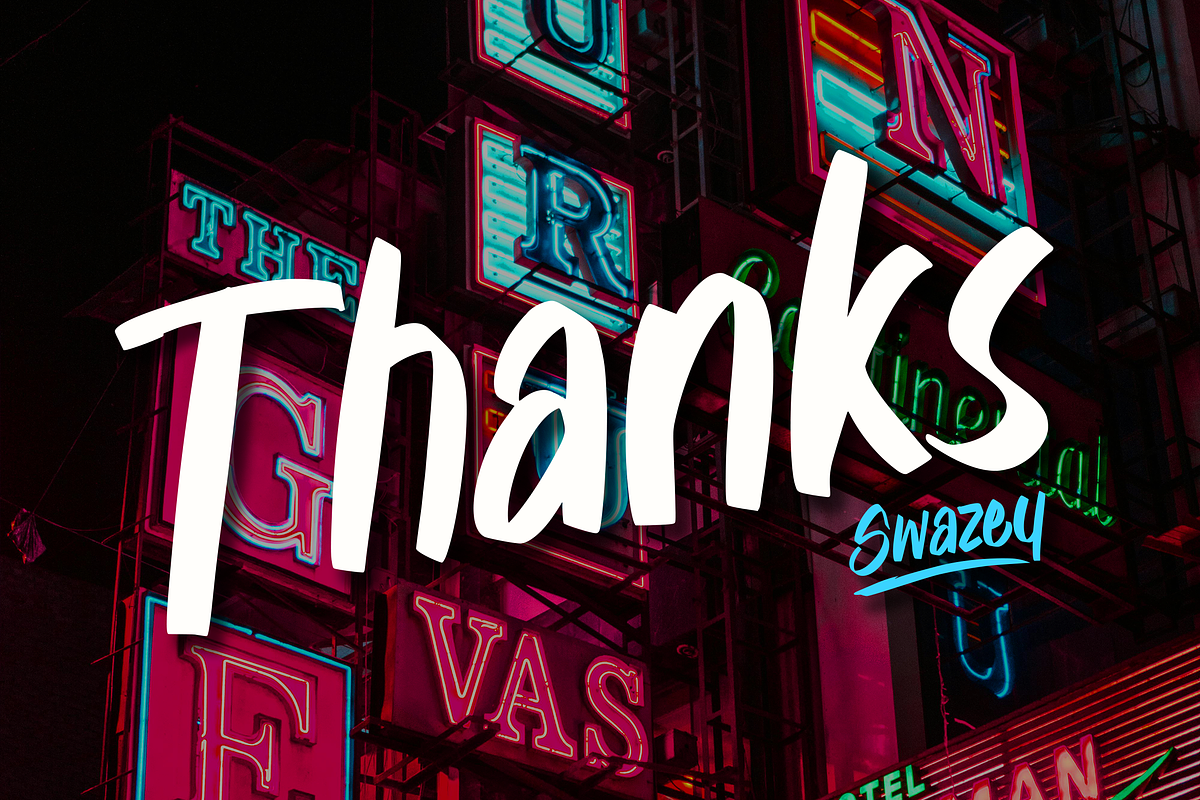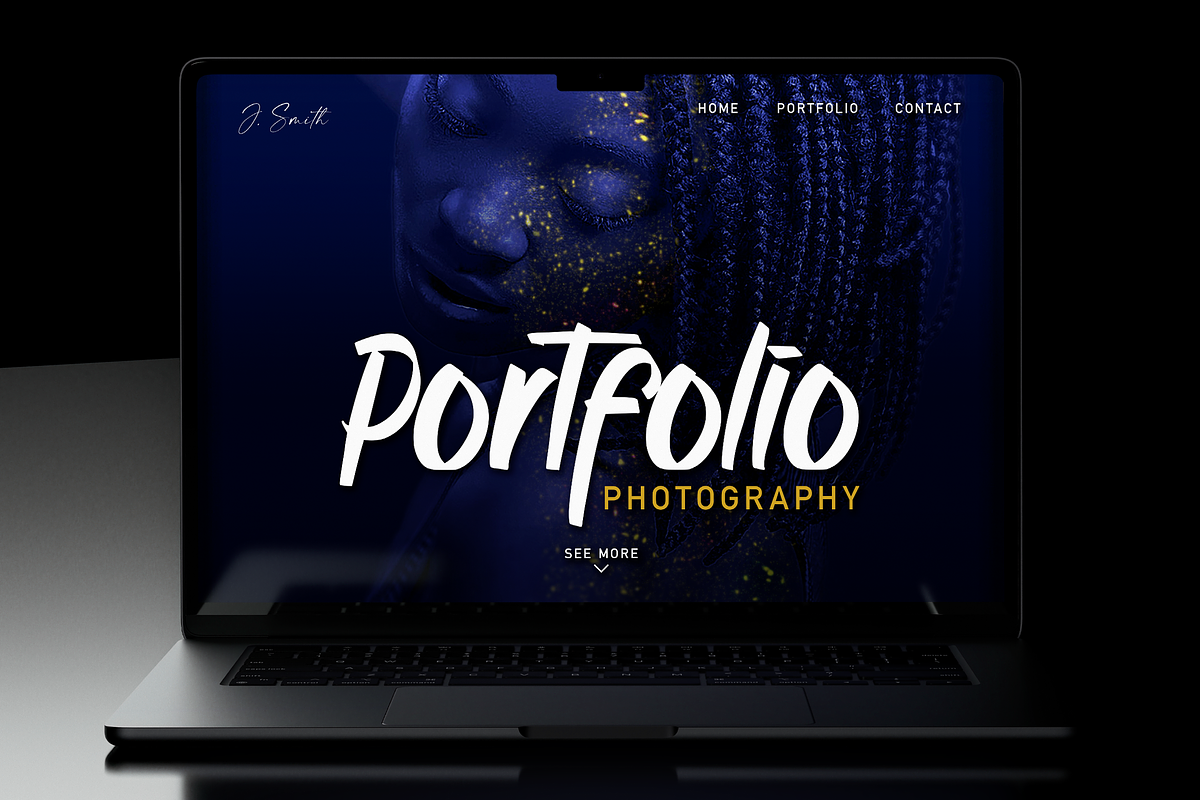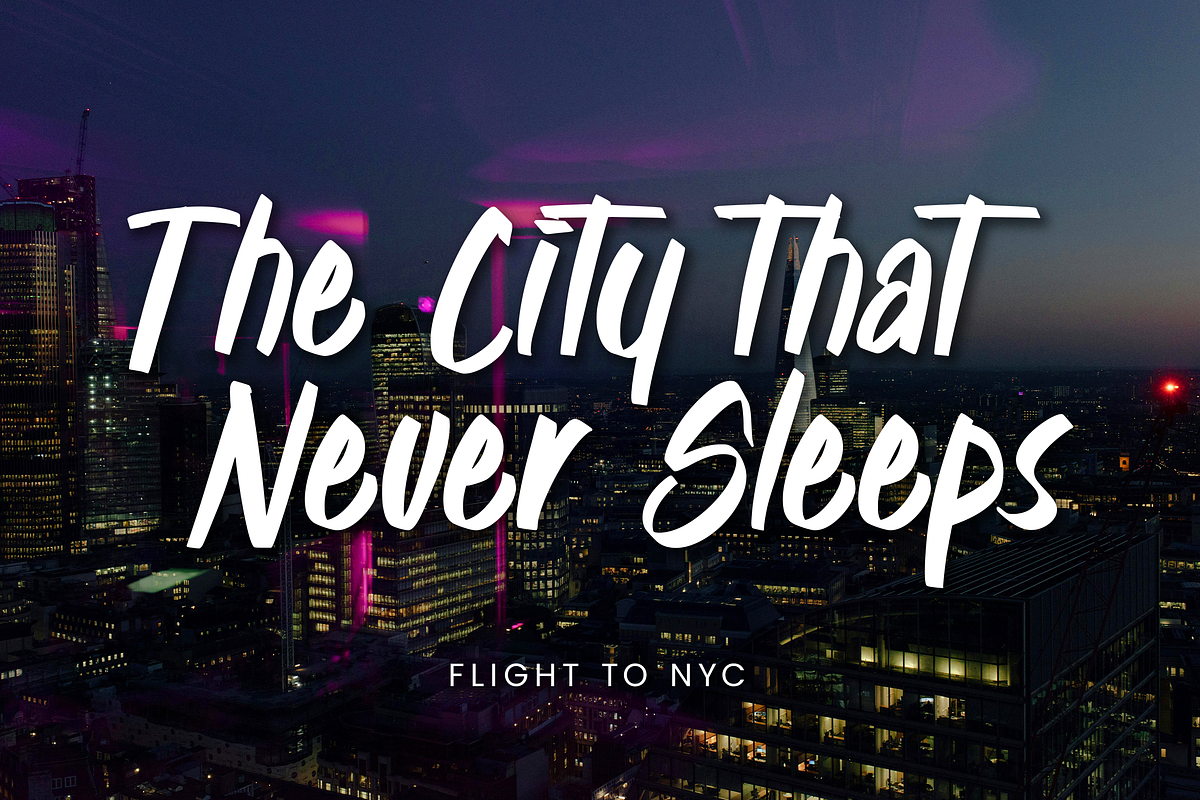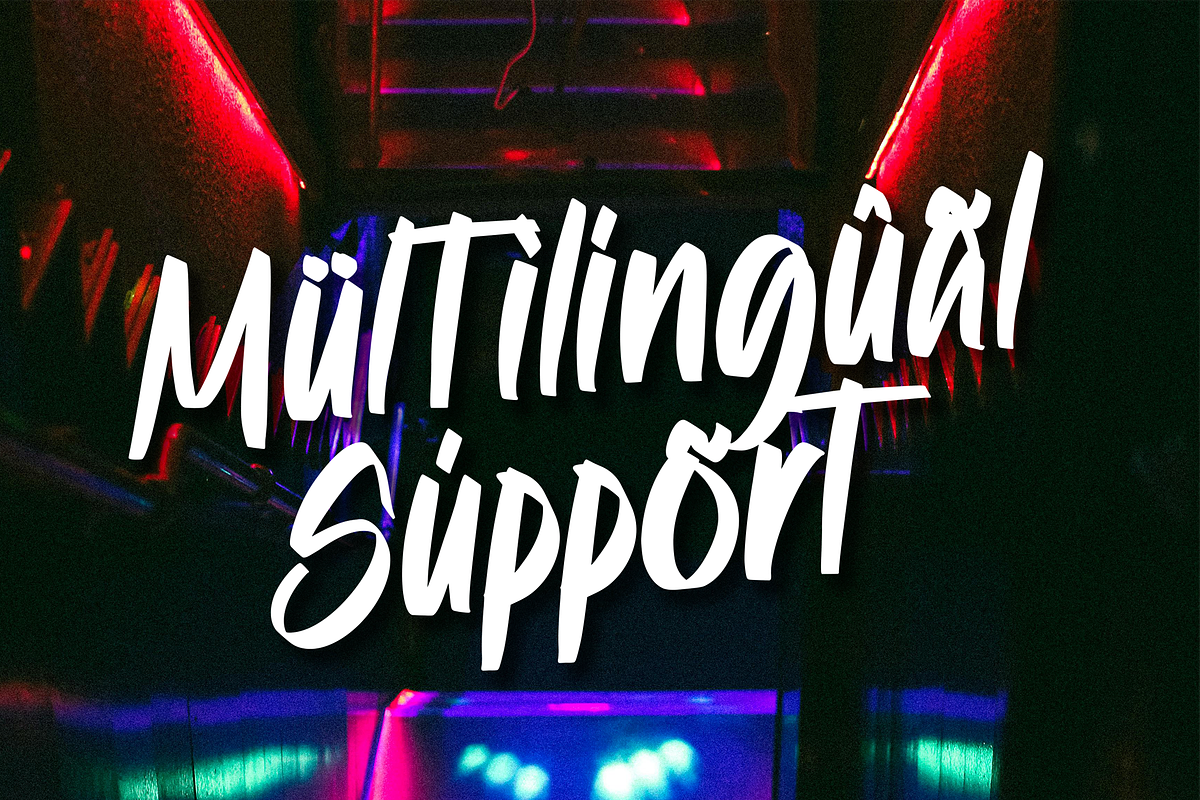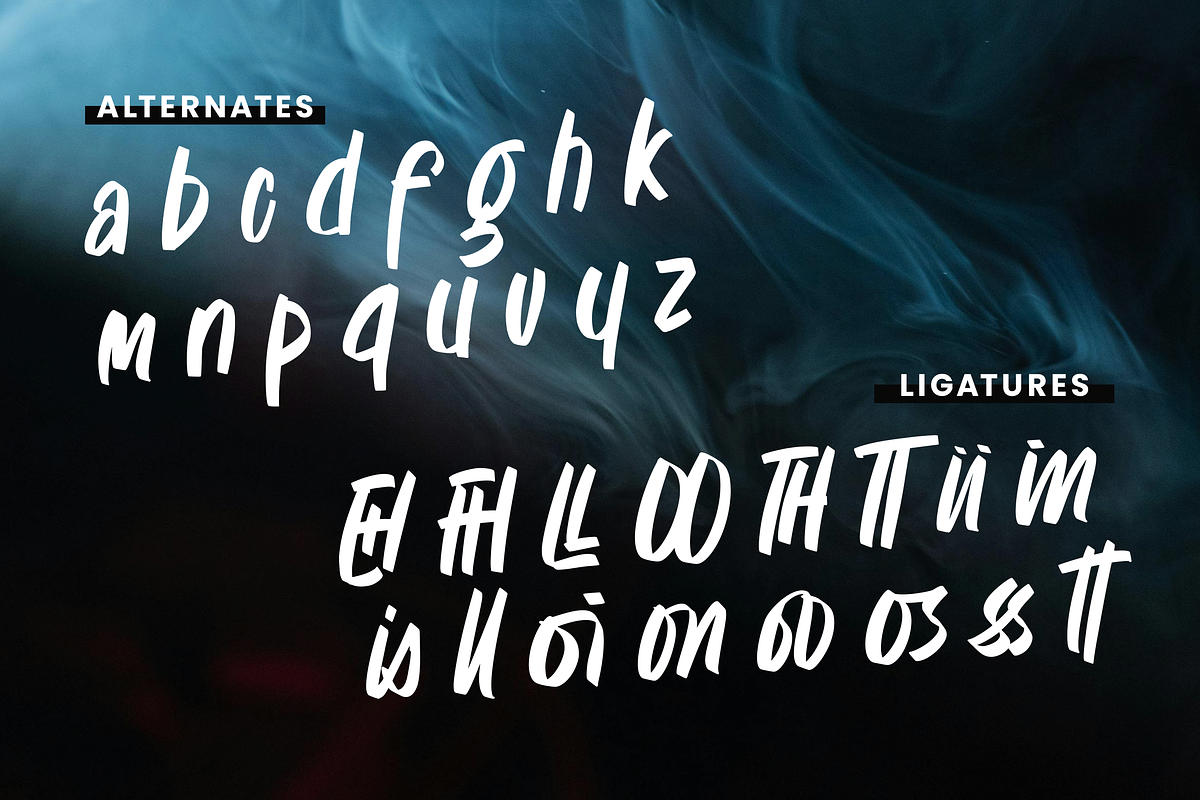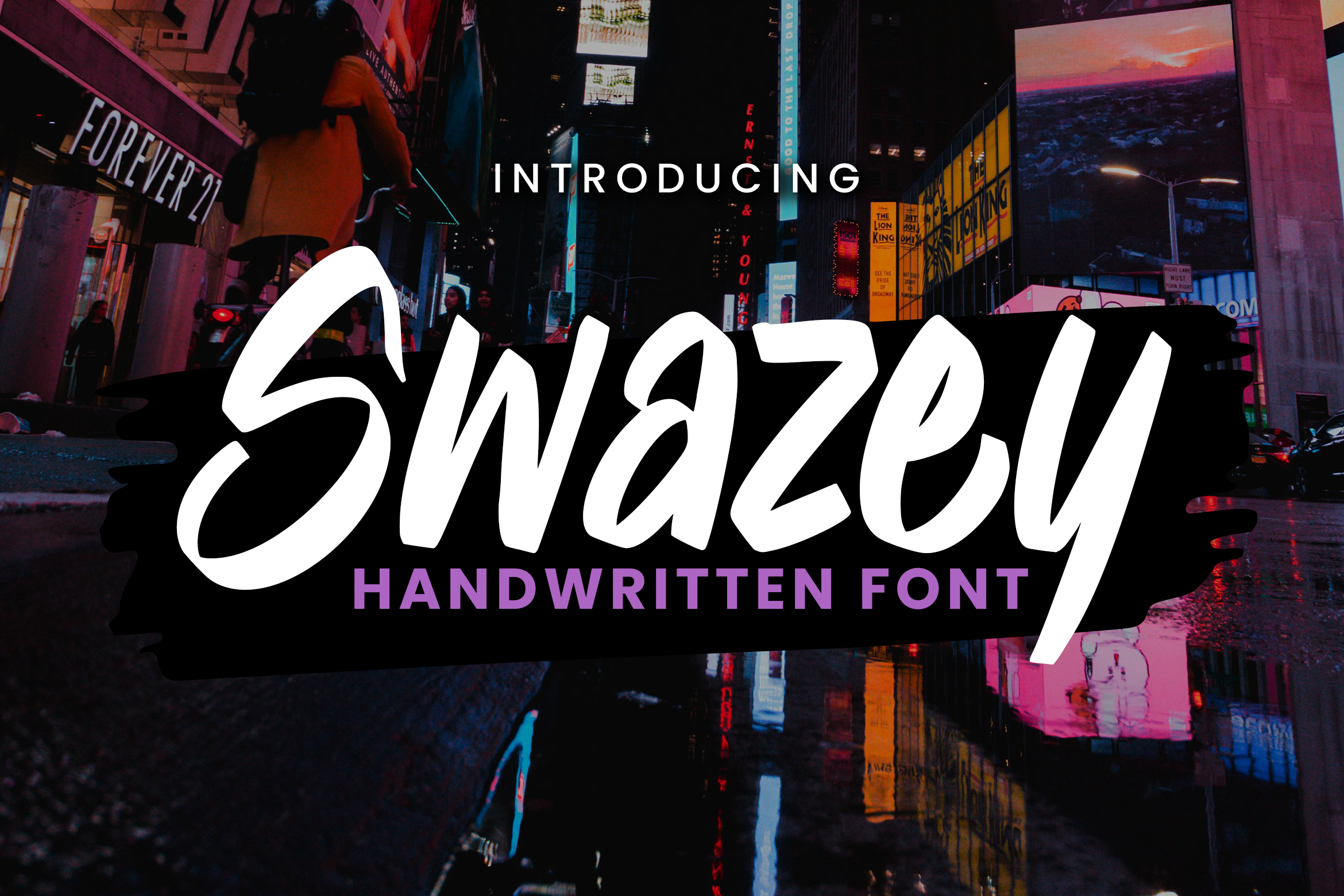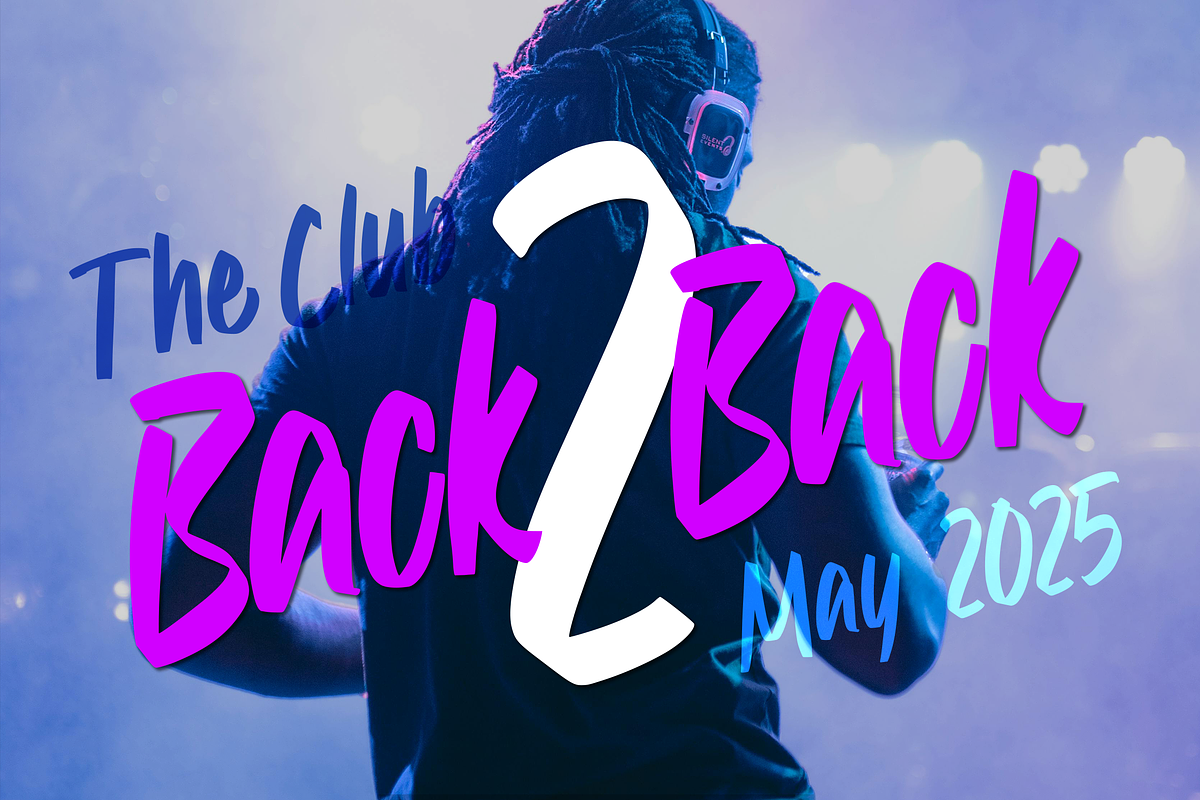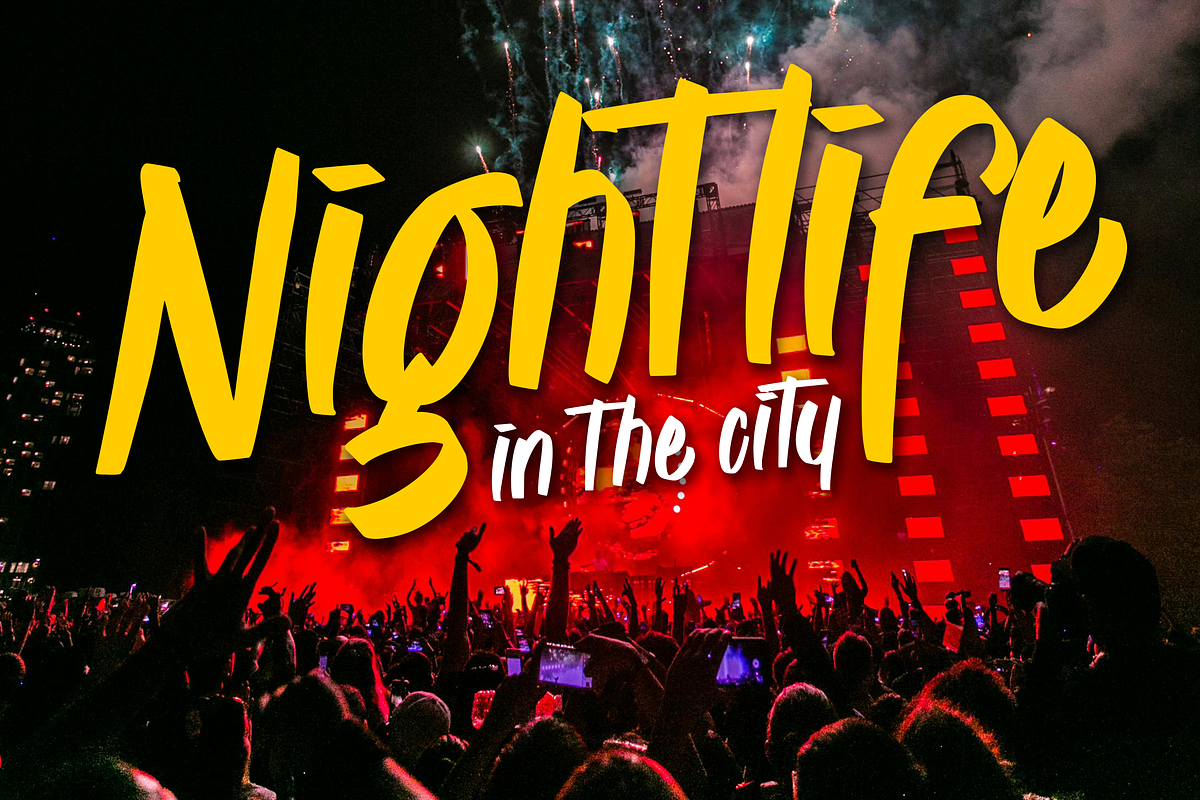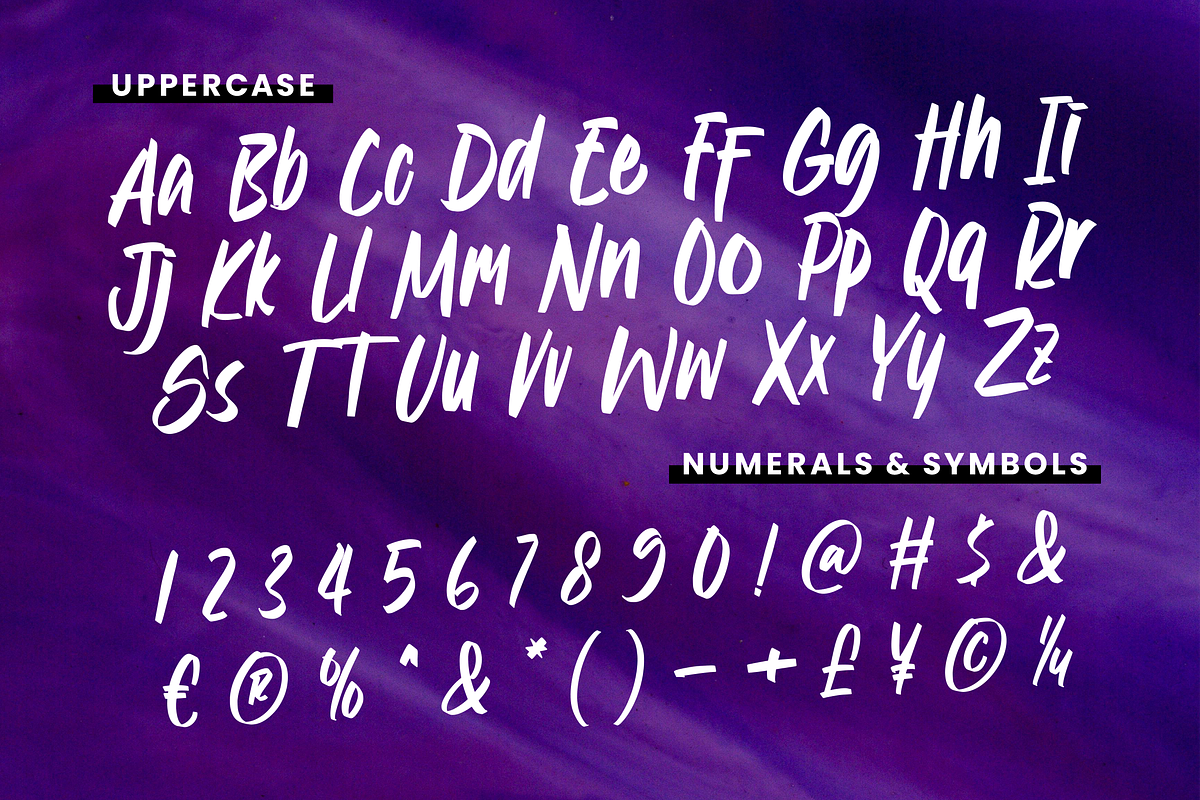
Swazey Playful Handwritten Font
Bring charm and character to your projects with Swazey, a playful and effortlessly stylish handwritten font. Perfect for adding a relaxed, personal feel to branding, packaging, notes, and more!
Customizable in size and style, Swazey gives every design a touch of spontaneity and warmth, making your content feel friendly, authentic, and full of personality.
- Multilingual & Ligature Support
- Full sets of Punctuation and Numerals